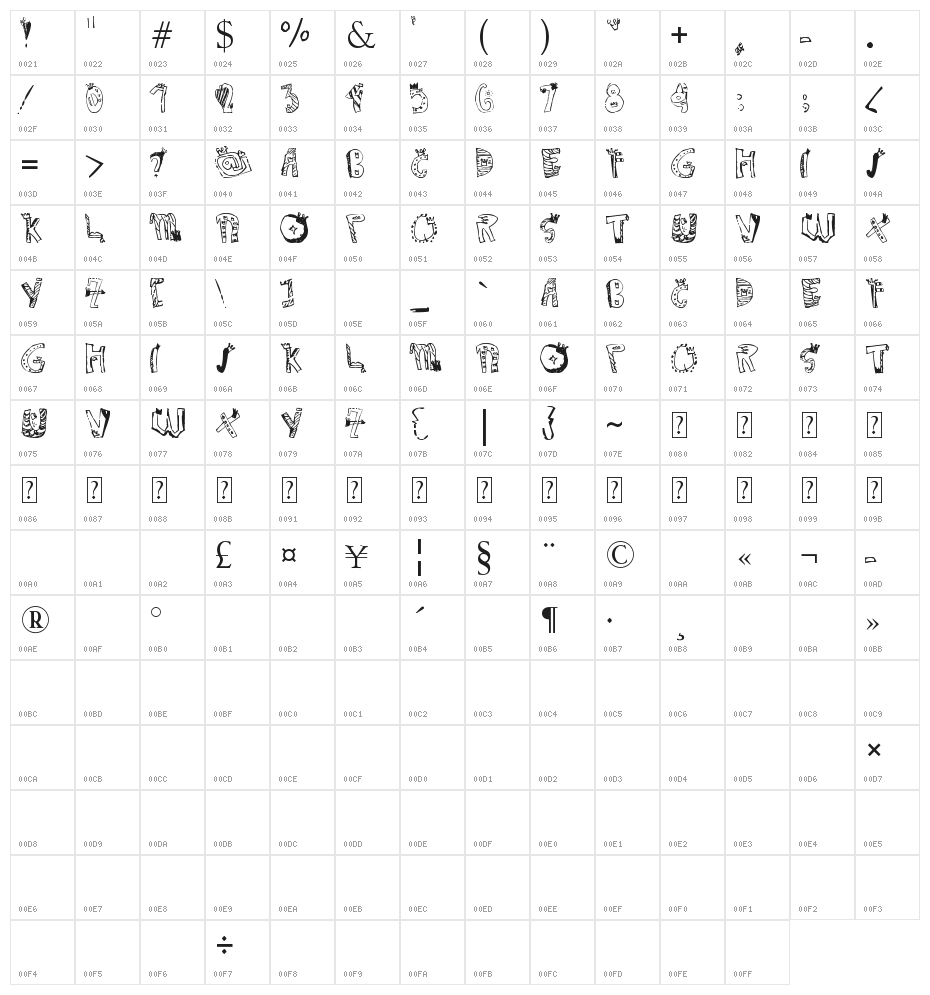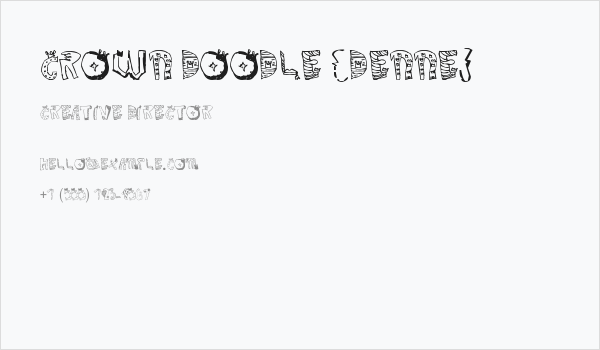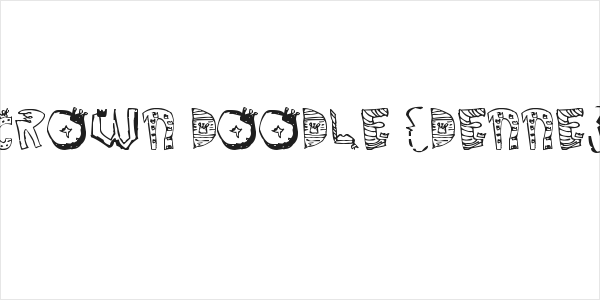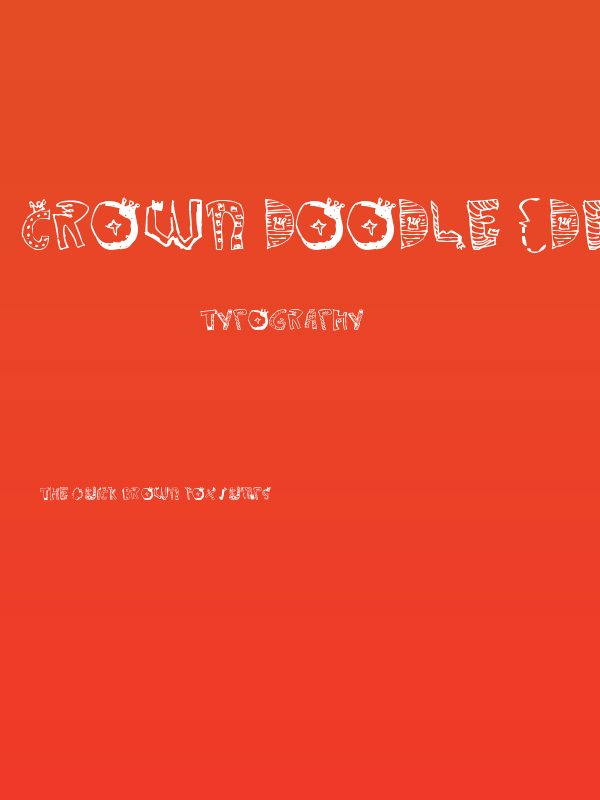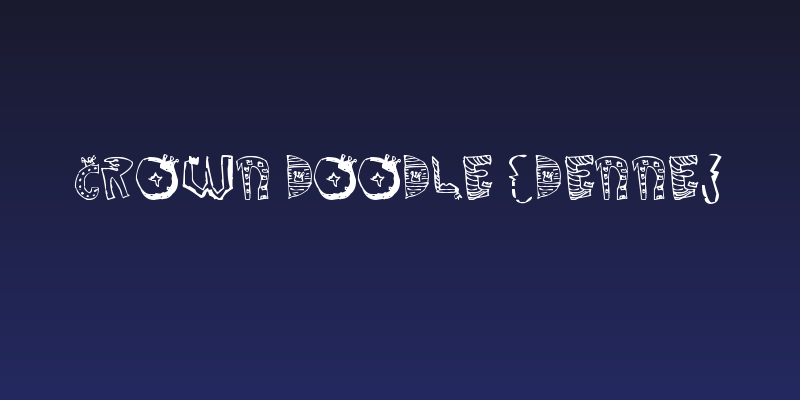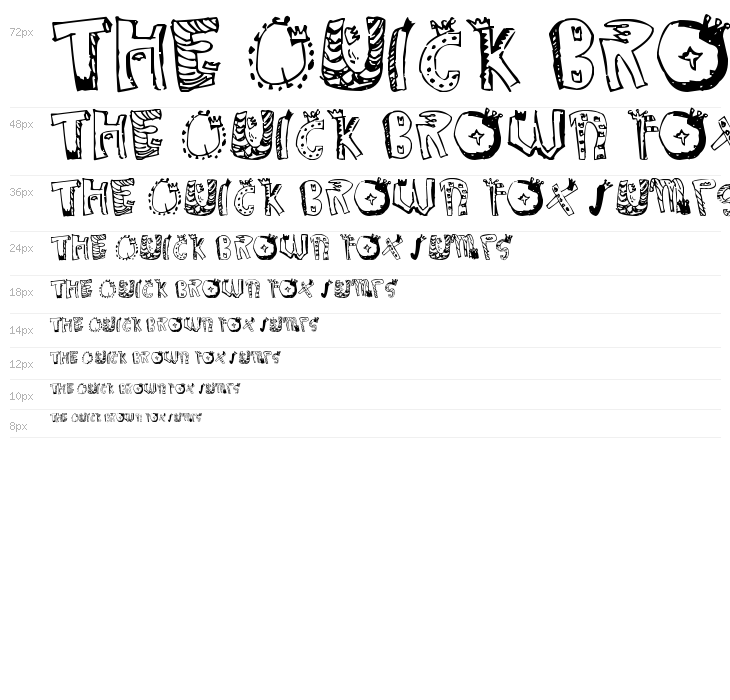
Crown Doodle {denne} Font
Crown Doodle {denne} Description
This playful and whimsical font features a doodle-like style with each character adorned with unique decorative elements, such as crowns, stars, and stripes. The letters are bold and irregular, giving a hand-drawn, artistic feel. The uppercase and lowercase letters maintain a consistent theme, with quirky embellishments that make each character stand out. Numbers and special characters follow the same creative approach, adding a fun and dynamic touch to any design. The overall appearance is lively and imaginative, perfect for projects that require a touch of creativity and humor.
| Proposed Projects | Ideal for children's books, playful branding, creative posters, and fun invitations. |